Bubble letters font styles are a fun and eye-catching way to add personality to designs. Whether you need a bubble letter font for posters, invitations, stickers, or banners, these fonts bring a playful vibe with their rounded letterforms and stylish curves. From graffiti fonts to cute fonts, bubble fonts work well for various creative projects.
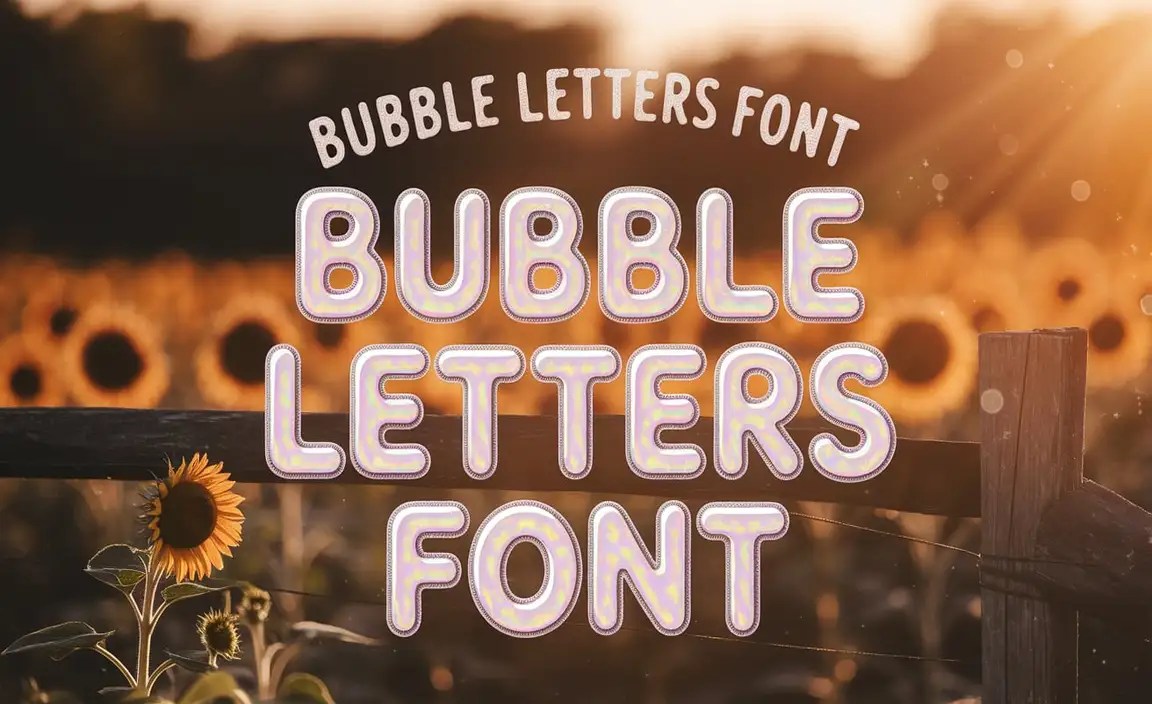
Popular Free Bubble Letter Fonts
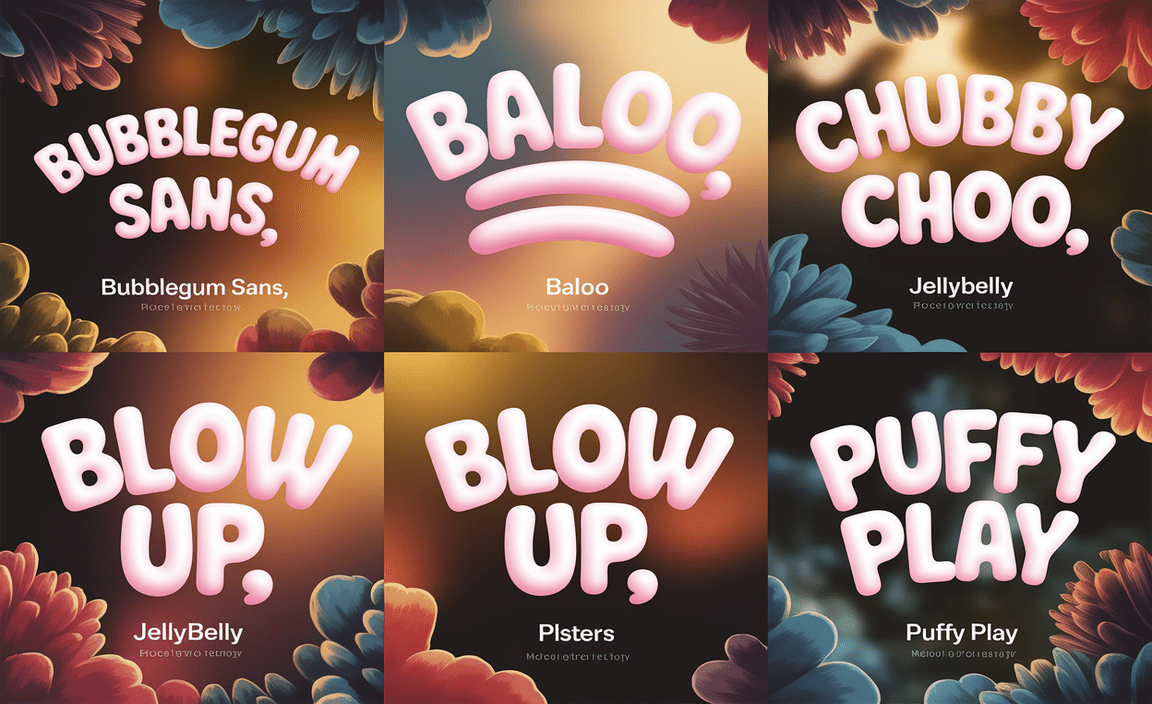
A bubble letters font features bold, rounded characters that resemble inflated shapes, similar to balloons. These fonts are commonly used in graffiti, greeting cards, birthday cards, and packaging. Their unique style makes them ideal for projects that require a fun, youthful, and energetic look. Bubble fonts can also include uppercase letters, lowercase letters, and special characters, making them versatile for different fonts and text styles.
1. Bubblegum Sans
A playful font with a smooth and round typeface, perfect for posters and invitations.
2. Baloo
A bold, modern bubble font with stylish typography, great for banners and logos.
3. Chubby Choo
A unique font with a thick and soft appearance, ideal for greeting cards and playful text styles.
4. JellyBelly
A cute font with a handwritten touch, suitable for stickers and stylish text.
5. Blow Up
A graffiti font featuring bold and rounded letterforms, giving a cool font effect for street-style graphics.
6. Puffy Play
A balloon-style bubble font that adds a whimsical touch to creative designs.
How to Use Bubble Letter Fonts
Bubble fonts can be used for various creative applications. Here are some ideas:
- Logos: A bubble text generator can help create a unique style for branding.
- Typography Art: Experiment with different fonts and text styles for artistic posters.
- Social Media Graphics: Use bubble fonts for captions, banners, and promotional materials.
- Greeting Cards & Invitations: A playful font adds charm to birthday cards and invitations.
- Stickers & Packaging: Unique font styles enhance product packaging and label designs.
Creating Styled Text with Bubble Fonts
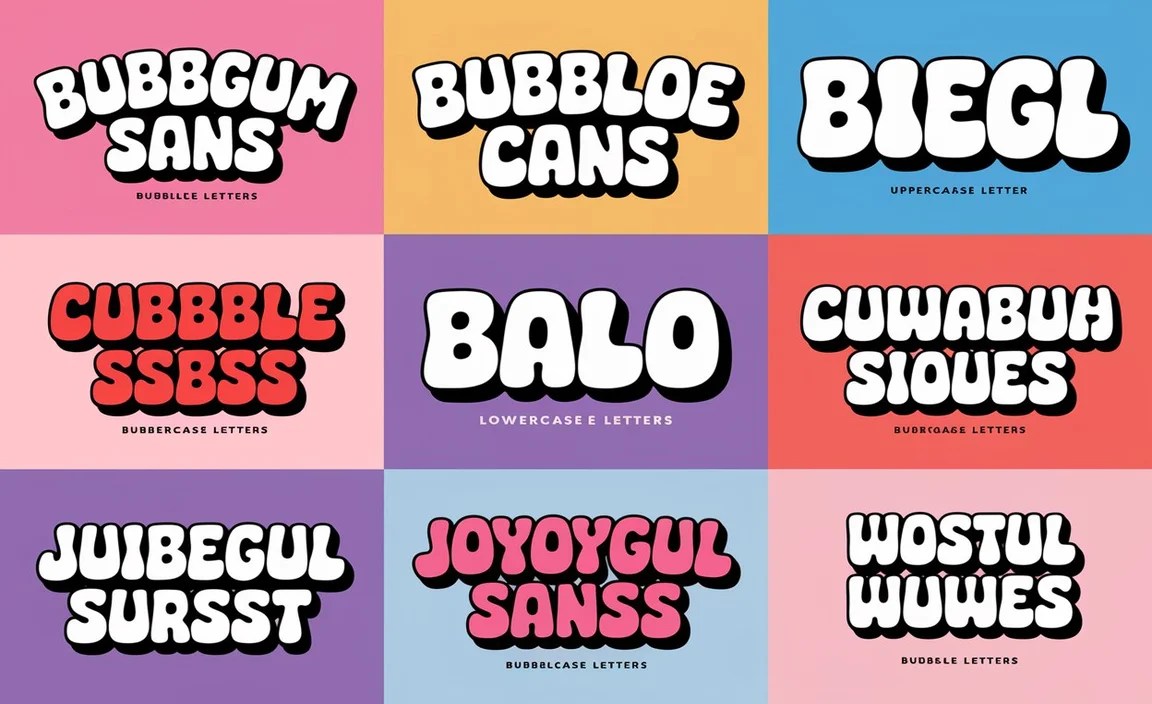
A bubble text generator allows you to convert normal text into a stylish font with rounded letterforms. These tools are useful for creating bubble-style characters for digital and print designs. Some generators also support symbols and special characters for a customized typography experience.
Choosing the Perfect Bubble Font
When selecting a bubble font, consider:
- Font Style: Choose between playful, graffiti, or clean rounded fonts.
- Readability: Ensure clear uppercase letters and lowercase letters.
- Application Needs: Find a stylish font that works for logos, posters, or social media graphics.
What Is The Best Free Bubble Letter Font?
Some popular free bubble fonts include Bubblegum Sans, Baloo, and Puffy Play.
How Do I Generate Bubble Text?
Use a bubble text generator to convert plain text into styled text with playful typography.
Are There Bubble Fonts With Special Characters?
Yes, many bubble fonts include symbols, special characters, and different text styles.
What Are Some Creative Ways To Use Bubble Fonts?
Bubble fonts work well for logos, banners, packaging, birthday cards, and social media graphics.
Do Bubble Fonts Come In Different Weights?
Yes, some typefaces offer variations like bold, light, and italic for different font styles.